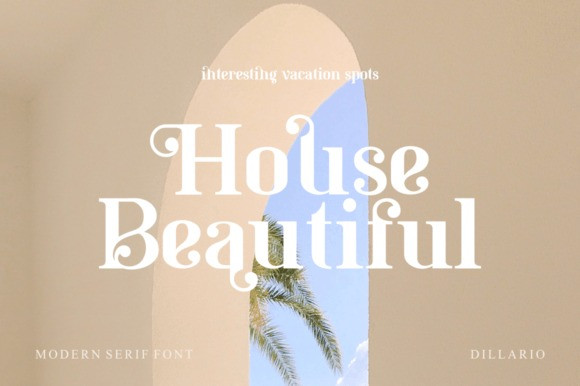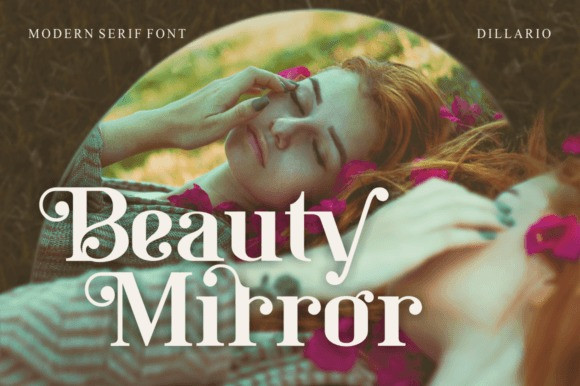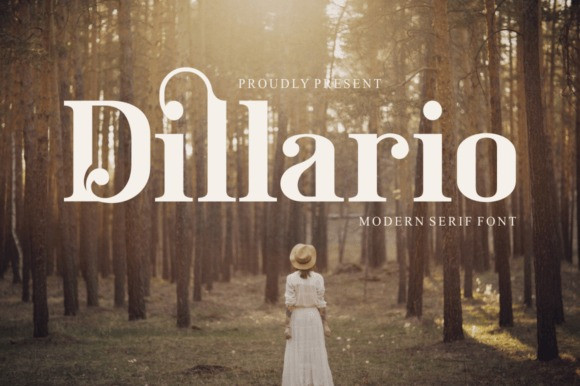
Dillario Font
Dillario Font is a sophisticated, charming serif font with a fashionable touch. Specially designed for luxury, elegant, feminine projects, this font is perfectly suitable for creating modern, chic designs.